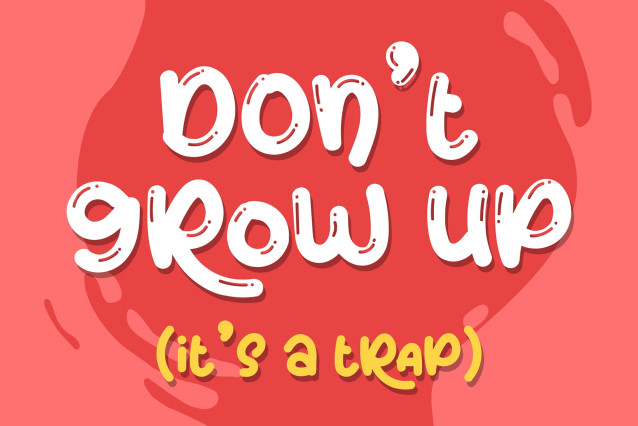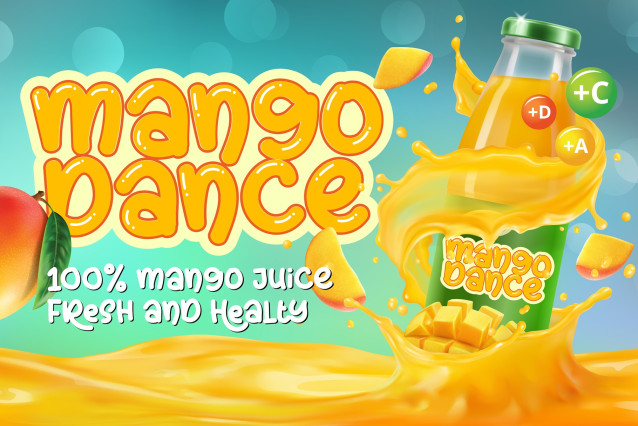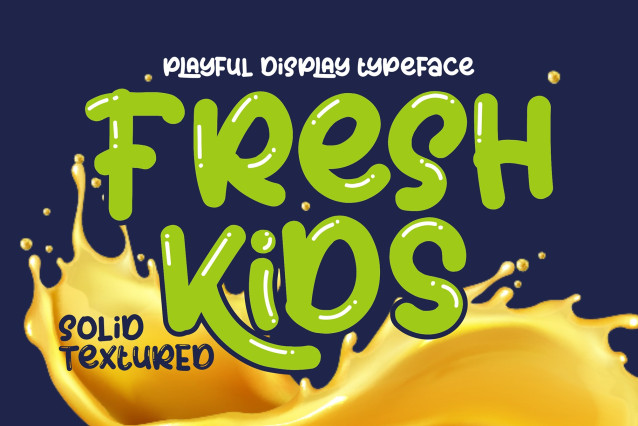
Fresh Kids Font
Fresh Kids Font – Playful Display Font is crafted to bring energy, charm, and excitement into your projects. With solid and textured versions, this playful display font offers versatility and personality, making it perfect for kids’ logos, birthday posters, school projects, and creative packaging.
From playful branding to digital media, Fresh Kids ensures your designs are lively, memorable, and fun to explore.
Playful Display Font for Bold Headlines
Fresh Kids is designed to capture the essence of youth and creativity. This playful display font comes in two versions—Fresh Kids Solid and Fresh Kids Textured—giving designers the freedom to choose between a clean bold style or a handcrafted playful look. Its bubbly, rounded strokes radiate positivity, making it ideal for kid-focused products and joyful campaigns.
For maximum impact, use this playful display font in large headlines, posters, and banners to immediately connect with your audience.